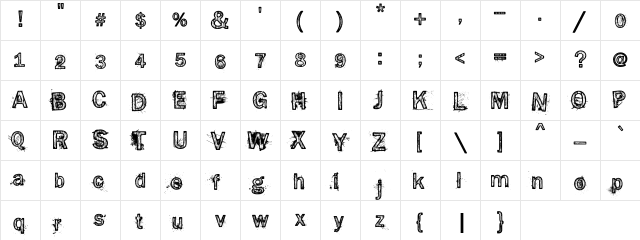
Splinter2 Regular
Foundry: International Typeface Corporation
Designer: Victor Caruso
Design Context for Splinter2
Splinter2 is a composed and adaptable typeface that performs quietly and consistently across a wide range of design contexts.
Pro Tip: Use Splinter2 in both headline and body roles to test its range before committing to a single application.